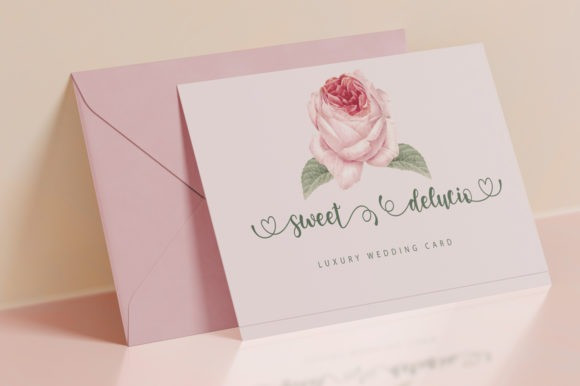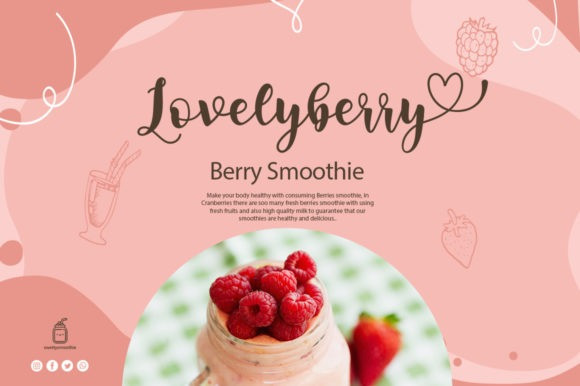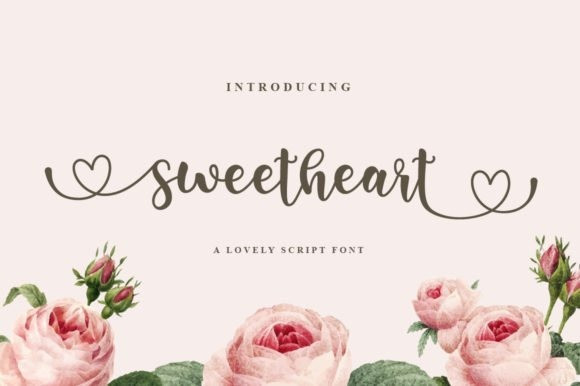
Vallesca Calligraphy Font
Vallesca is a sweet, round lettered and playful script font. It will looks perfect on any kind of greetings card, wedding stationary, quote, branding, and so much more.